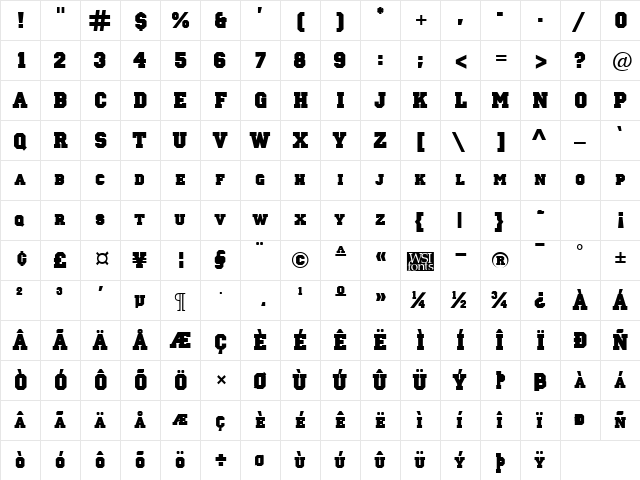
LettermanSolid Regular
Design Context for LettermanSolid Typeface
LettermanSolid takes a measured approach to typography — its balanced proportions and neutral character make it a reliable workhorse for both digital and print work.